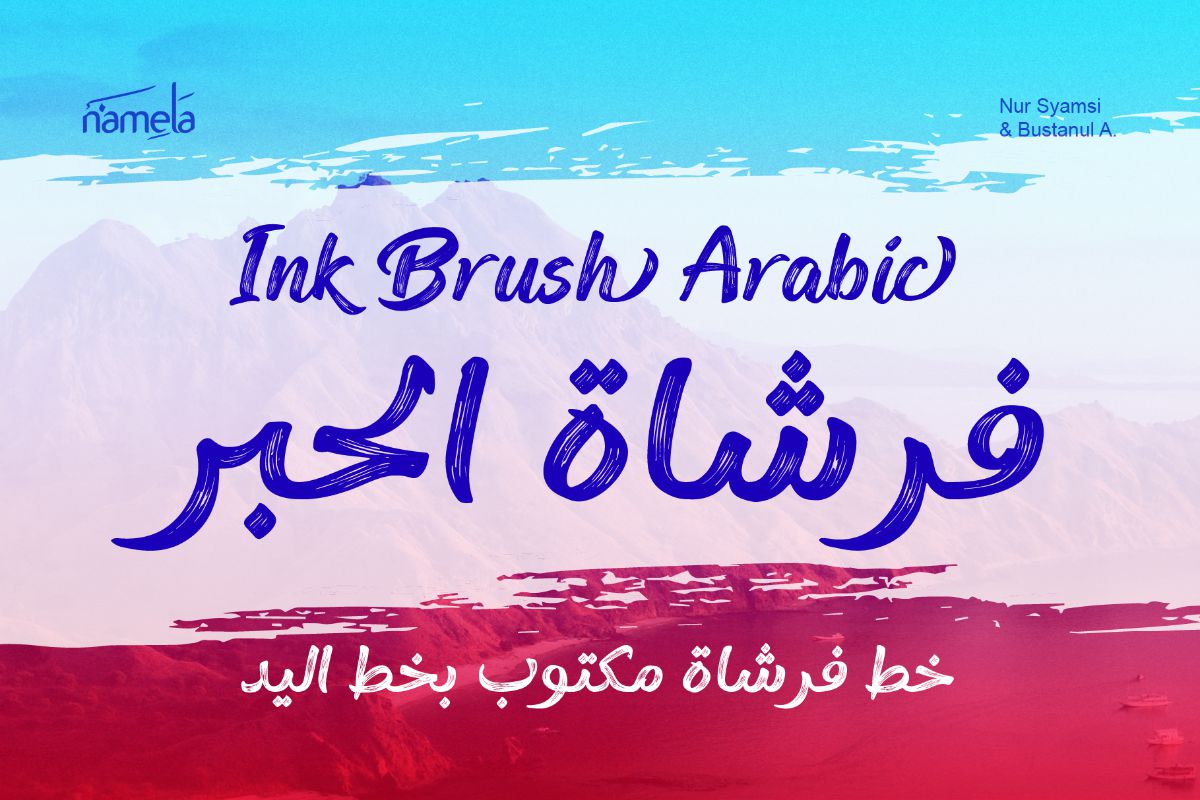
Ink Brush Arabic Solid
Ink Brush Arabic Font - A Textured Handwriting Brush Typeface for Branding & Broadcast Great Arabic typography has always carried emotional depth beyond simple communication. Rooted in centuries of calligraphic tradition, the Arabic script is inherently expressive—fluid, rhythmic, and deeply connected to the movement of the human hand. Ink Brush Arabic translates that tradition into a modern, versatile typeface designed for contemporary creative work. Developed by Namelatype, Ink Brush Arabic T